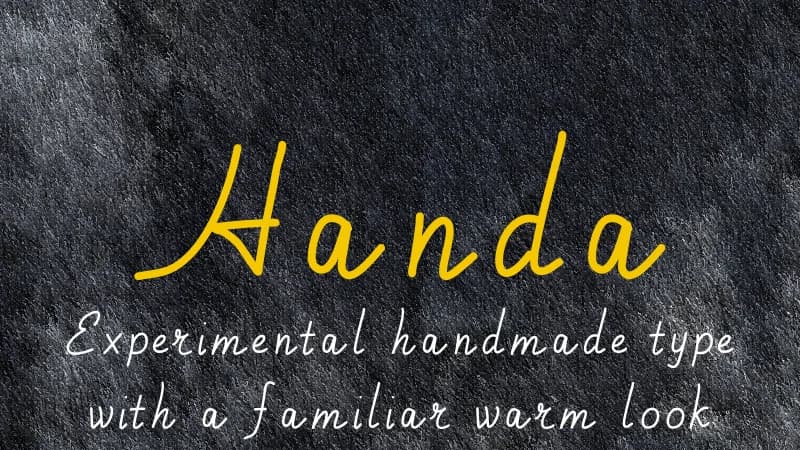
About Handa Font
Handa by Kreativ is a hand-lettered script with soft, gently slanted letterforms that beautifully captures the organic charm of pencil writing. The rounded strokes feel intimate and approachable, making it an ideal choice for personal projects where authenticity and genuine character matter most. This typeface brings warmth to handwritten correspondence, children's book covers, greeting card designs, and DIY scrapbooking layouts, anywhere natural personality needs to enhance the visual message. The design works especially well for intimate applications and personal touches. Thank you notes, recipe cards, journal spreads, and personalized gift tags all benefit from Handa's naturally friendly aesthetic. Whether you're creating baby shower announcements, craft labels for small-batch handmade products, or custom wedding stationery, the soft geometric quality of these letterforms creates genuine emotional resonance without feeling overly decorative or trendy. The typeface strikes an elegant balance between casual authenticity and refined polish, making it equally at home in formal invitations and informal personal projects. Beyond traditional print, Handa's approachable character translates beautifully to digital applications, from social media graphics celebrating personal moments to custom packaging designs for artisan goods and handmade products. The hand-drawn sensibility gives visual weight to projects that need to feel human-made and heartfelt, creating genuine connection rather than mass-produced distance. Get Handa on Creative Fabrica and bring warmth to your typography.
Handa Font is a script font that shines as a display or heading face. Pair it with a clean sans-serif or serif font for body text β the contrast creates a clear hierarchy while the two styles stay balanced and easy to read.
Handa Font